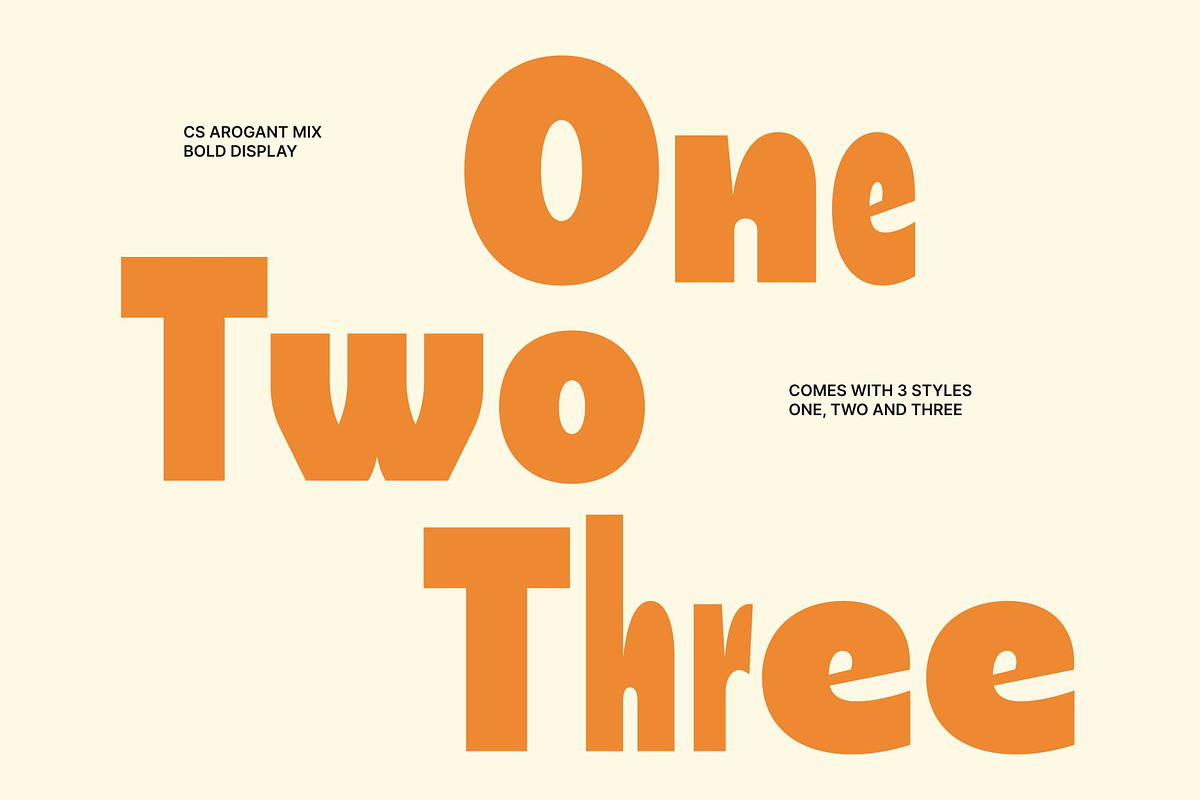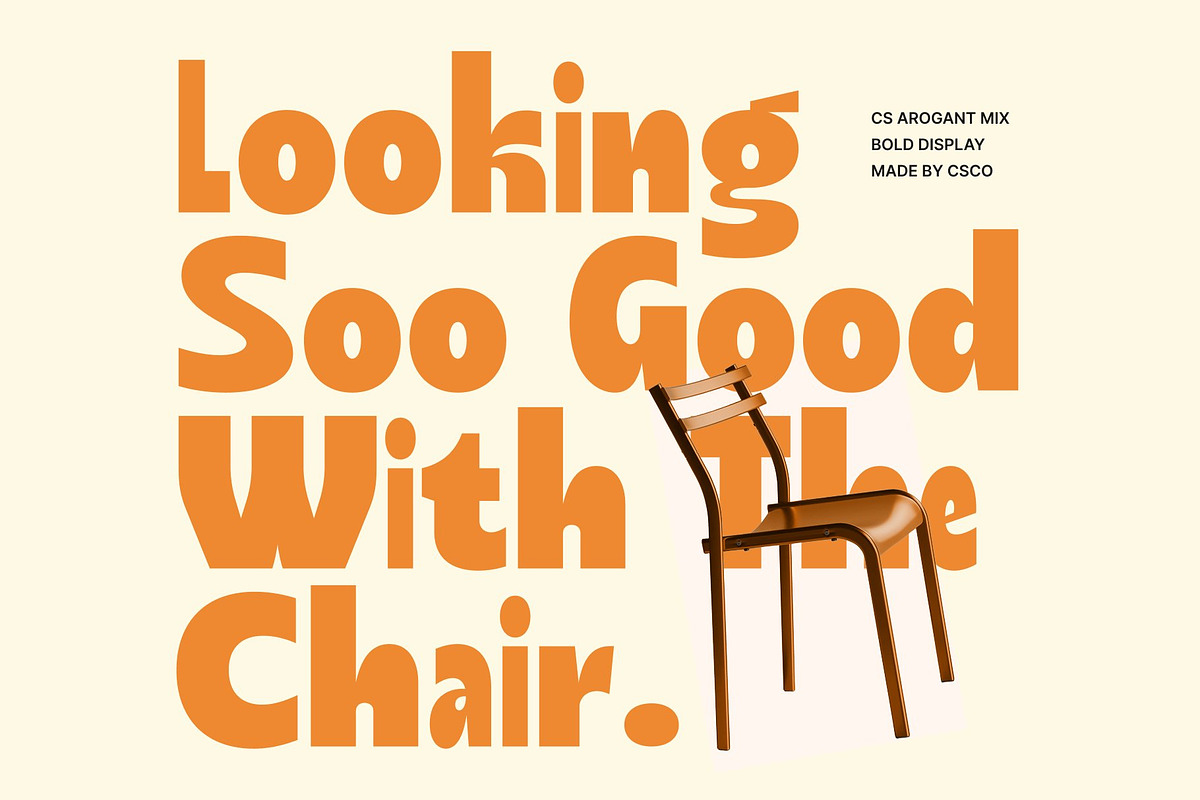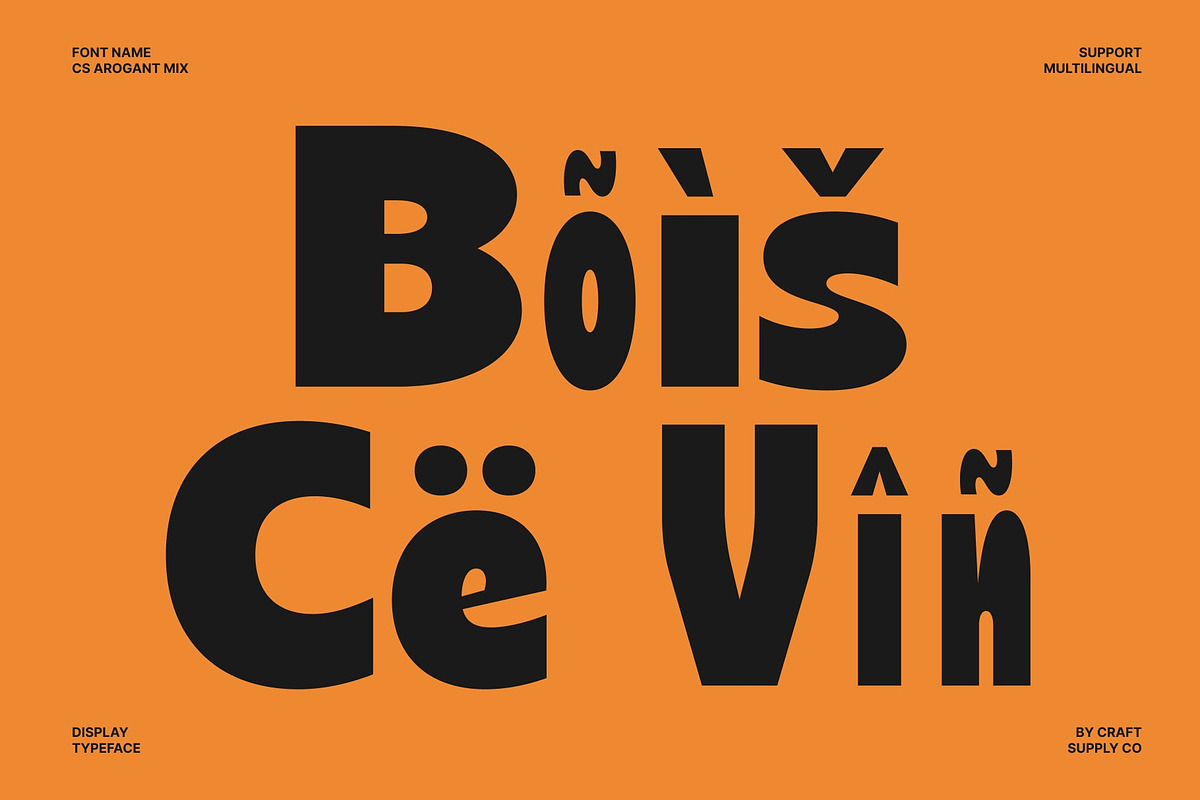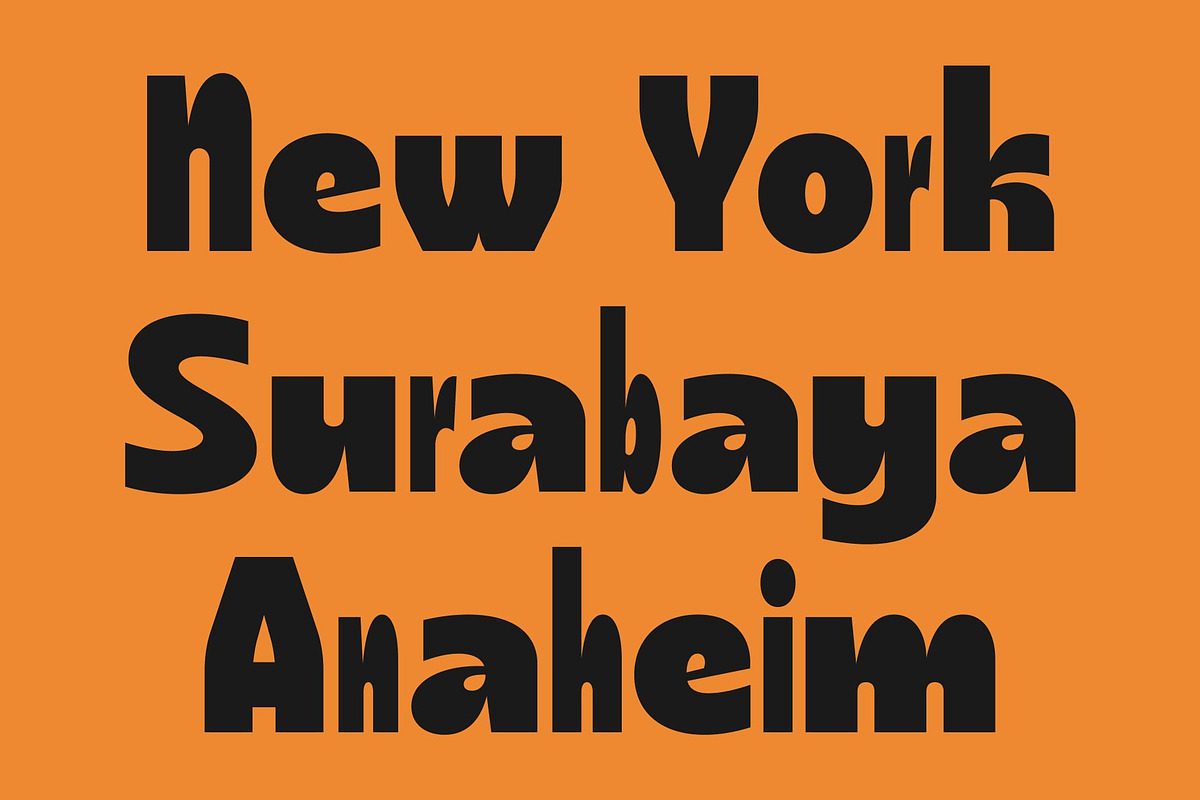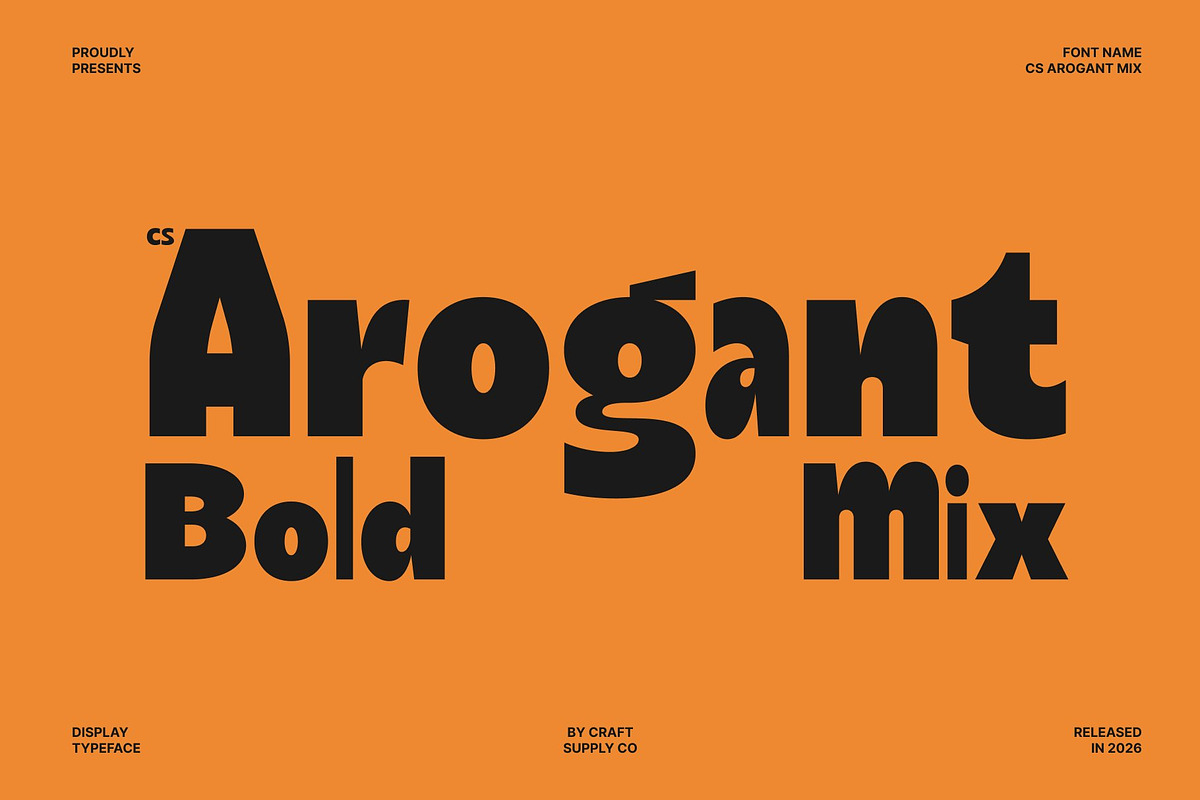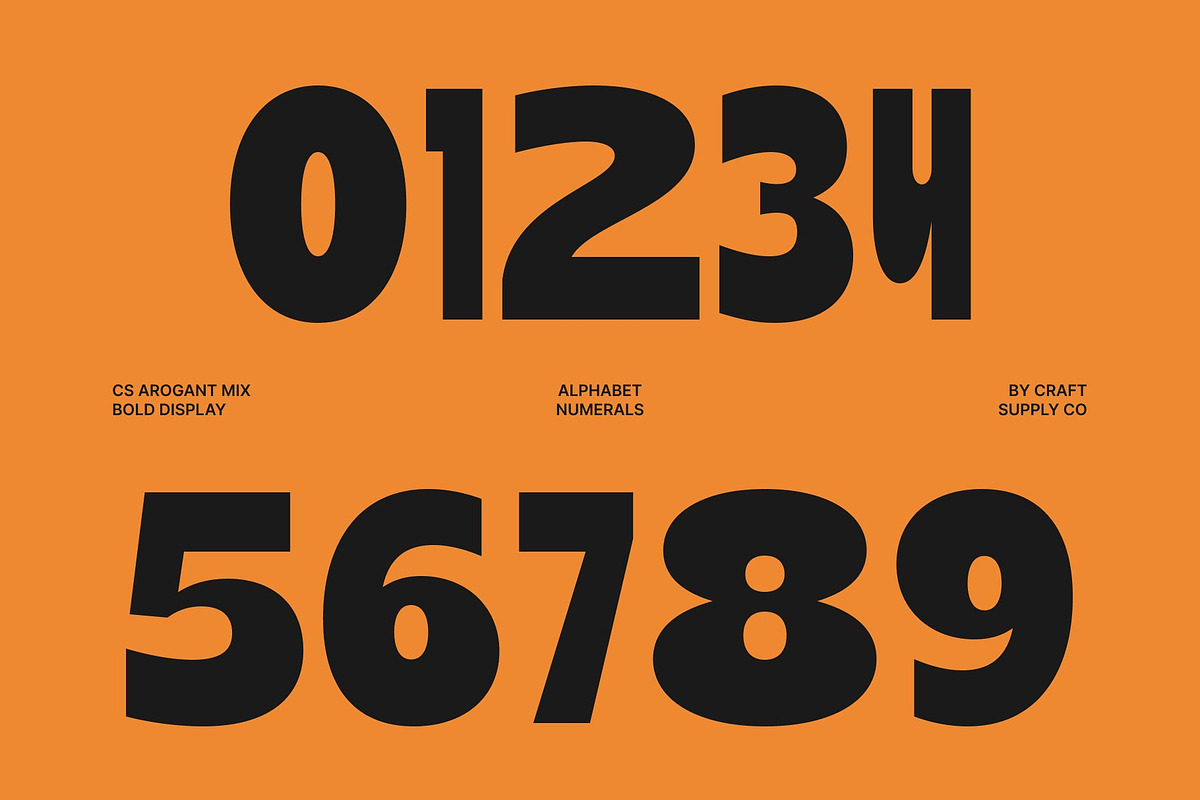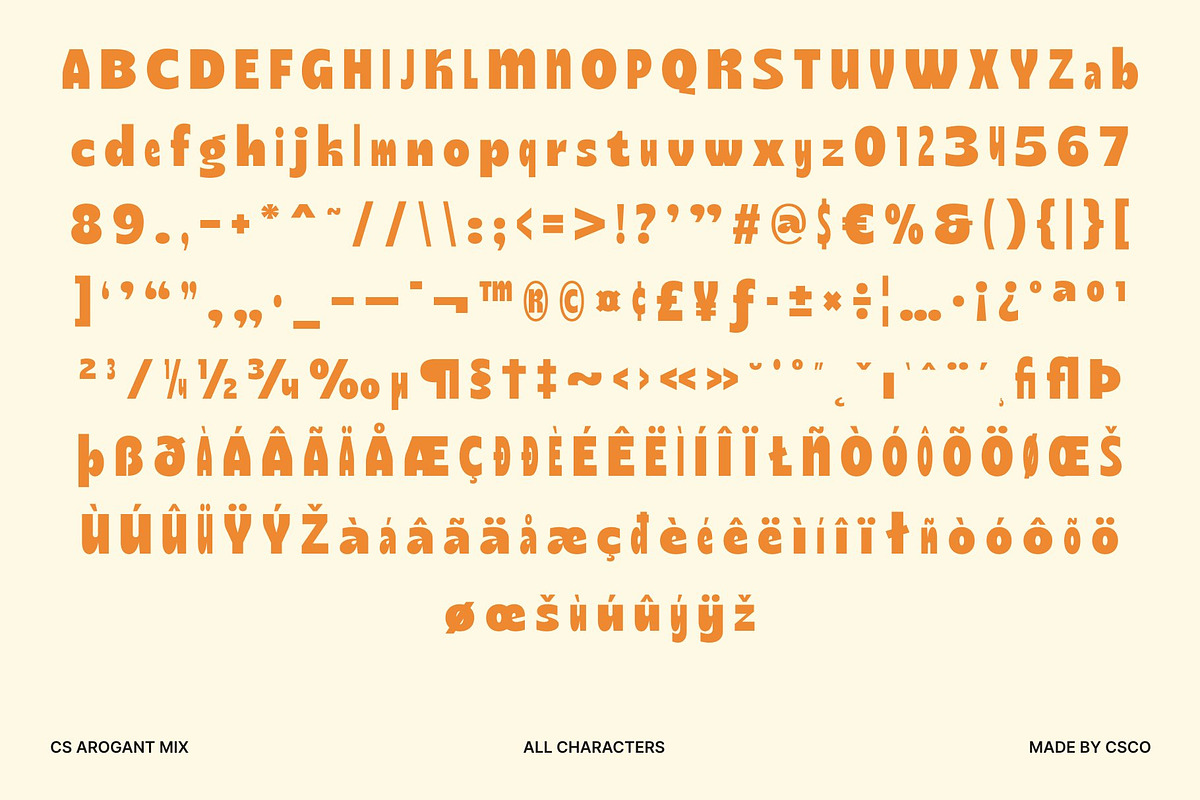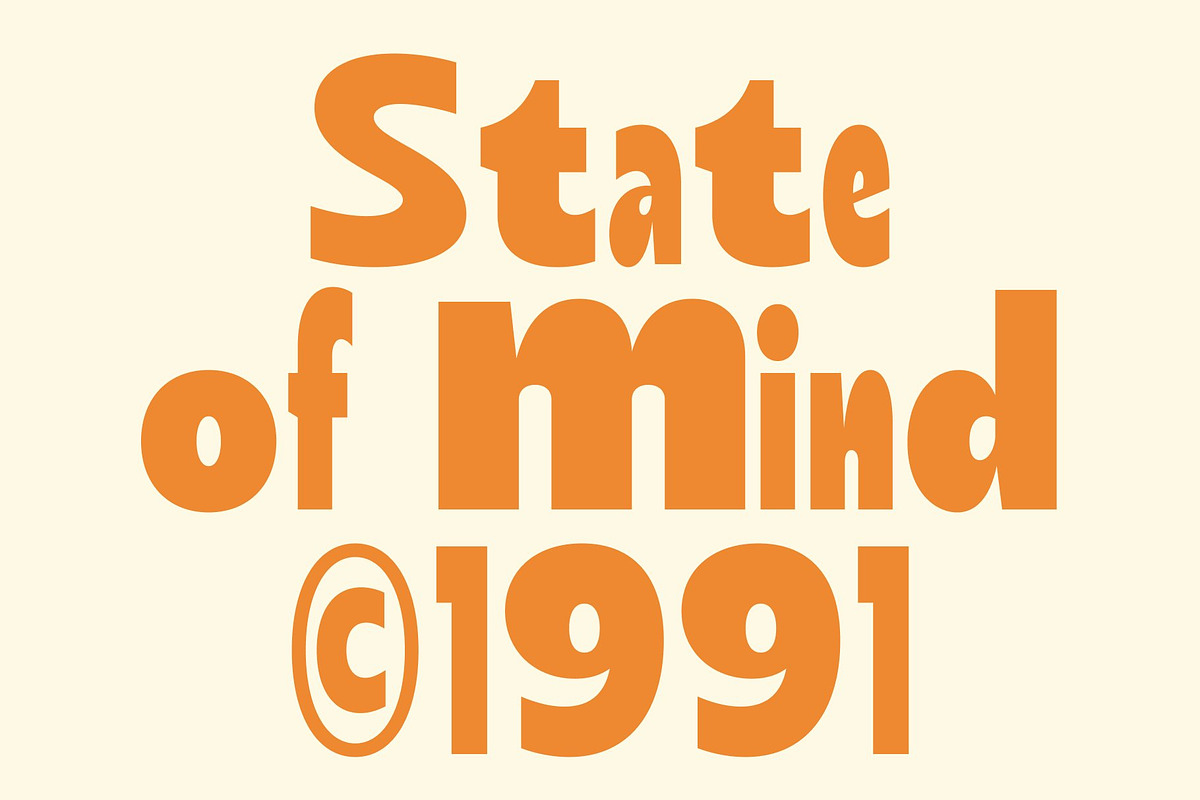
CS Arogant Mix
CS Arogant Mix – Bold Sans Serif Font: Funky Energy with Confident Modern Style
Bold Sans Serif with Mixed Style Character This is a modern sans serif font designed to combine bold confidence with playful creativity. Featuring strong letterforms, expressive details, and a distinctive mixed-style concept, this typeface delivers a vibrant visual personality that instantly captures attention. By blending structure with spontaneity, it transforms everyday typography into a dynamic design element that feels fresh, energetic, and unmistakably modern.
A Creative Blend of Bold and Regular Letterforms The defining feature of this font lies in its fusion of bold and regular styles. This mixed-weight approach creates natural contrast and visual rhythm, making every word feel more engaging and expressive. The variation in stroke weight adds movement and personality, helping headlines, logos, and display text stand out while maintaining excellent readability and balance.
Playful Details with Contemporary Appeal This font embraces clean construction while introducing subtle quirky touches through unexpected curves and unique proportions. These playful characteristics bring warmth and individuality to the design without sacrificing professionalism.
Perfect for Youthful Branding, Posters, and Creative Displays From music festival posters and fashion branding to packaging, social media graphics, and promotional campaigns, this font adapts effortlessly to projects that demand energy and originality. Its bold presence ensures maximum visibility, while its expressive personality creates memorable visual experiences.